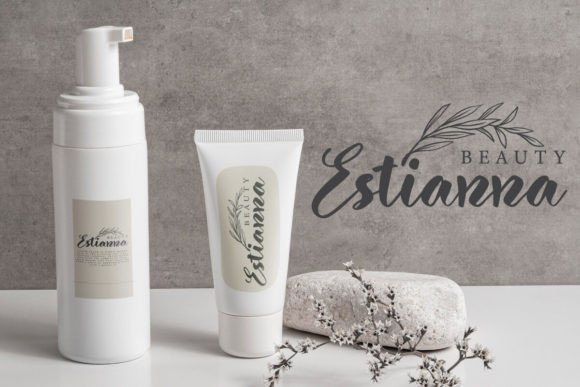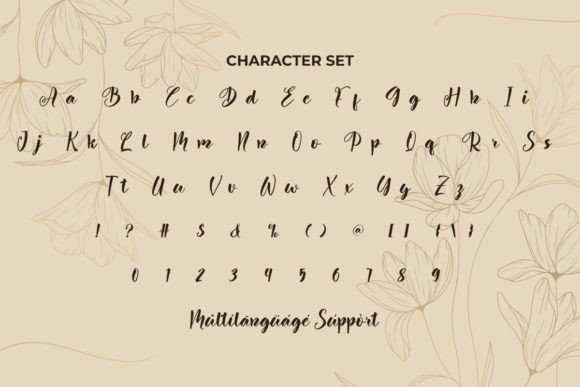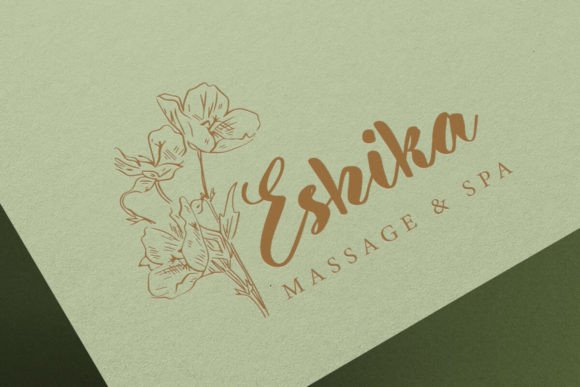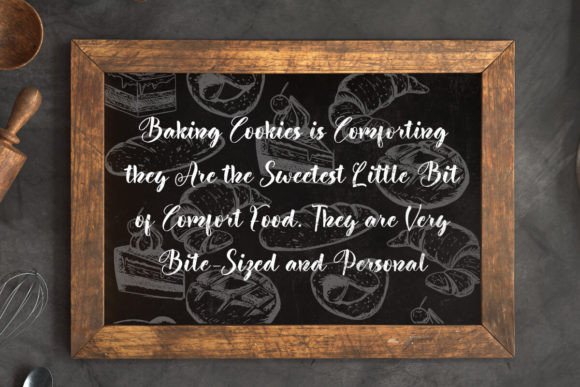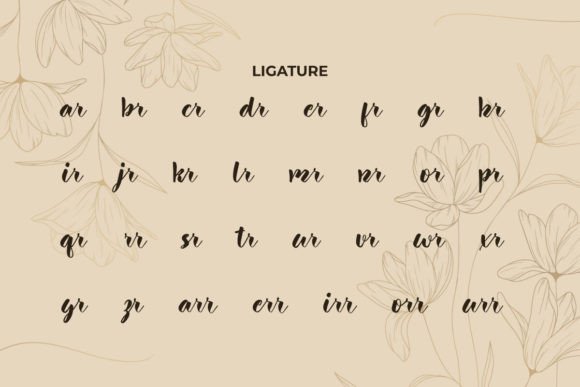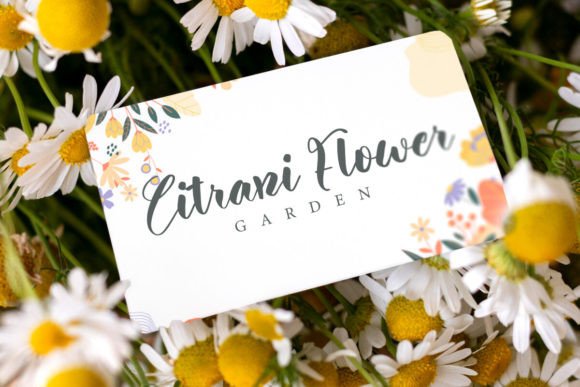
The Perfect Bloom for Your Design
Have you ever sat in a quiet garden, surrounded by the simple beauty of daisies, and felt inspired to create something new? I know I have. It’s moments like these that remind me of the power of nature to spark our creativity. And that’s exactly what the Awesome Daisy Font is all about – capturing the essence of this lovely flower and bringing it to life in a beautiful, flowing script.
As a designer, you’re always on the lookout for fonts that can add a touch of personality to your projects. The Awesome Daisy Font is more than just a pretty face – it’s a versatile tool that can be used in a wide range of industries, from publishing and printing to fashion and interior design.
Awesome Daisy Font Key Features
- Unique Characteristics: Awesome Daisy Font features a unique blend of modern and vintage elements, with intricate details and subtle flourishes that add a touch of elegance to any design.
- Font Weight and Style: The font family includes multiple weights, from Light to Black, and various styles, such as Regular, Italic, and Bold, allowing for a high degree of customization and flexibility.
- Language Support: Awesome Daisy Font supports a wide range of languages, including Latin, Cyrillic, Greek, and many others, making it an ideal choice for global branding and design projects.
- Scalability: The font is designed to be highly scalable, ensuring that it remains legible and visually appealing at various font sizes, from small to large, without losing its unique character.
Awesome Daisy Font Review
Overall, I was excited to try out the Awesome Daisy Font, and while it has some great qualities, I have to say that it’s not without its limitations. Let’s dive in and take a closer look.
- The font’s whimsical feel is infectious, making it perfect for playful and creative projects.
- The various weight options and ligatures allow for a lot of customization and flexibility.
- The font’s unique character shapes add a touch of personality to any design.
- The font’s readability can be a bit of an issue, especially at smaller font sizes.
- The font’s lack of a clear, consistent style can make it difficult to use in more formal or professional settings.
In conclusion, while the Awesome Daisy Font has some amazing qualities, its limitations hold it back from being a top choice for me. With a bit more refinement and attention to readability, I think this font could be truly amazing. As it stands, I’d recommend it for more casual or creative projects where its unique personality can shine.
Awesome Daisy Font is ideal for use in creative projects, such as invitations, posters, and greeting cards. It’s also suitable for use in digital products, such as mobile apps and websites, where a playful and modern font is desired.
Yes, the Awesome Daisy Font is optimized for digital use and can be used in e-books, mobile apps, and other digital products. The font is designed to be clear and readable at various screen resolutions and sizes.